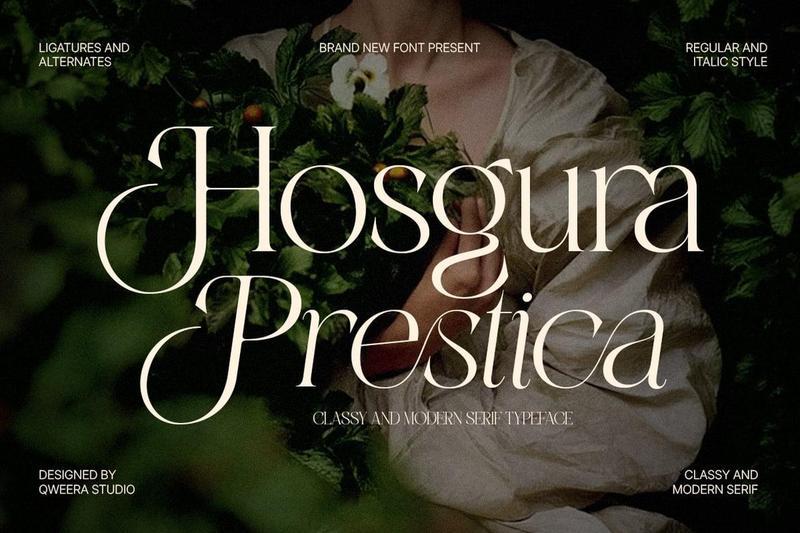
Modern Elegant Classy Branding- Hosgura Prestica WZRE29F
**Hosgura Prestica** is a classy modern serif typeface designed to bring refined elegance and premium sophistication to creative projects. Featuring graceful curves, stylish alternates, and elegant ligatures, this font creates a polished editorial look with a timeless luxury feel.
Perfect for luxury branding, fashion editorials, beauty packaging, wedding invitations, boutique logos, botanical branding, premium stationery, and upscale visual identities.
Hosgura Prestica blends modern serif structure with soft decorative details, making it ideal for designers who want stylish typography with classy and luxurious personality.
**Features**
– Uppercase & lowercase
– Alternates & ligatures
– Multilingual support
– Professional kerning
– Regular & Italic
**Perfect For**
Luxury branding, fashion editorials, beauty packaging, wedding invitations, boutique logos, botanical branding, premium stationery